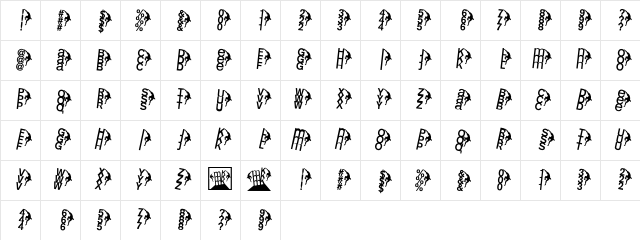
RightClimbers Regular
Design Context for RightClimbers Typeface
RightClimbers is a composed and adaptable typeface that performs quietly and consistently across a wide range of design contexts.